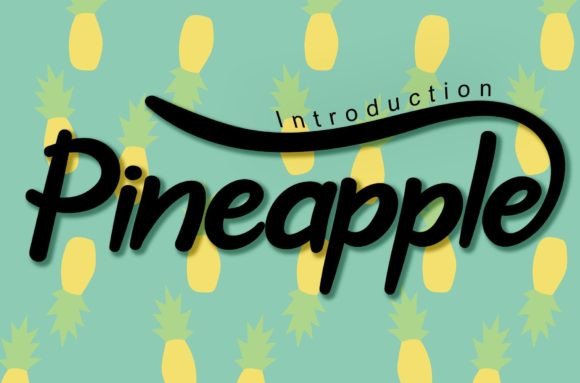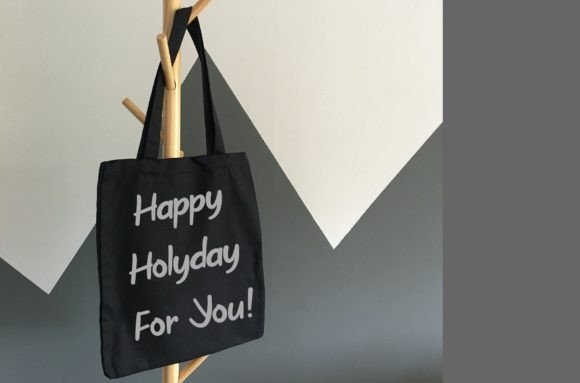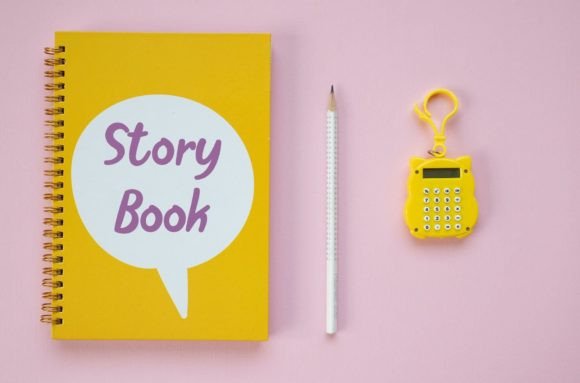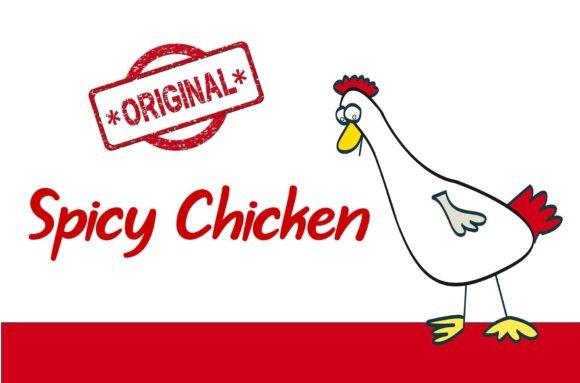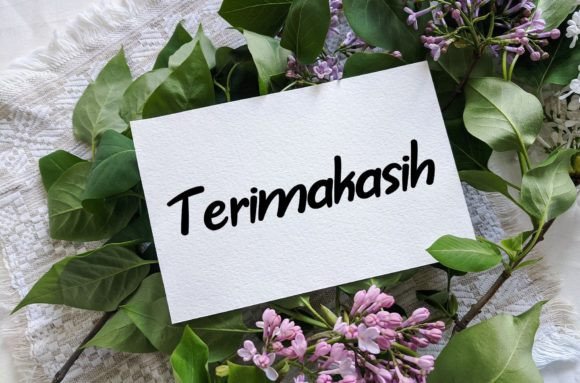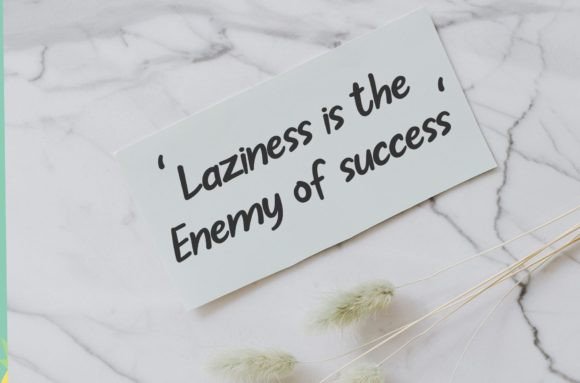
Pineapple Font
“Pineapple” is a fun and whimsical handwritten font that adds a playful touch to a variety of design contexts. Despite its whimsy, this font manages to look good in diverse applications, showcasing its versatility.
The playful and whimsical qualities of “Pineapple” make it suitable for a range of creative projects. Imagine using it for children’s designs, playful posters, greeting cards, or even on merchandise. The font’s ability to adapt to different contexts enhances its appeal for a wide audience.
One notable feature of “Pineapple” is its PUA encoding, providing easy access to a variety of glyphs and ligatures. This feature enhances your creative freedom, allowing you to customize and personalize your designs effortlessly. Whether you’re a seasoned designer or someone exploring the world of creativity, “Pineapple” invites you to experiment with its fun and whimsical handwritten style.
As you incorporate “Pineapple” into your design projects, let its playful and whimsical nature be the key element that adds a lighthearted touch. Whether you’re working on posters, cards, or any other creative endeavor, “Pineapple” ensures that your designs stand out with a sense of fun and creativity.